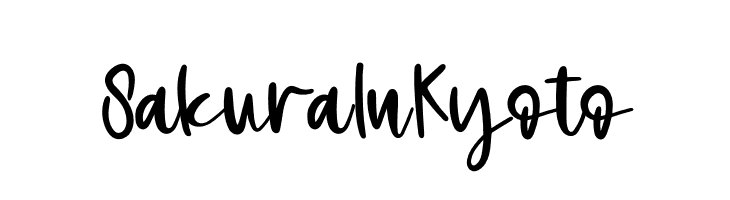
( Fonts by Måns Grebäck )
A playful, whimsical script font with a handwritten style.
( Fonts by Maelle.K | Thomas Boucherie )
A dynamic and elegant script font with fluid, cursive strokes.
A bold, playful script font with a handwritten feel.
A playful, handwritten script font with connected letters and a bold presence.
( Fonts by Southype )
A playful font with characters inside balloon shapes, perfect for festive designs.
( Fonts by Cannot Into Space Fonts )
A delicate, hand-drawn font with a whimsical and personal touch.
( Fonts by Cannot Into Space Fonts )
A delicate, hand-drawn script with thin, flowing lines and a casual, elegant style.
( Fonts by Cannot Into Space Fonts )
A minimalist, hand-drawn font with thin, uneven strokes and a casual, informal style.
( Fonts by Cannot Into Space Fonts )
A thin, handwritten font with a slanted, elegant style.
( Fonts by Cannot Into Space Fonts )
A casual handwritten font with thin, slightly slanted strokes.
( Fonts by Cannot Into Space Fonts )
A thin, hand-drawn font with a casual, informal style.
( Fonts by Cannot Into Space Fonts )
A light, hand-drawn cursive font with a casual and elegant style.
( Fonts by Cannot Into Space Fonts )
A delicate, hand-drawn font with thin, whimsical strokes and an organic feel.
A flowing cursive font with elegant, sweeping curves and fluid connections.
( Fonts by Måns Grebäck )
A dynamic, expressive handwritten font with fluid strokes and a casual flair.
( Fonts by Jonathan S. Harris )
A grungy, narrow font with a distressed, handmade appearance.
An elegant script font with flowing, cursive letters and a classic style.
( Fonts by Maelle.K | Thomas Boucherie )
Elegant cursive font with a fluid, handwritten style.
( Fonts by Linda Sciutto )
A playful, casual handwritten font with dynamic, irregular strokes.